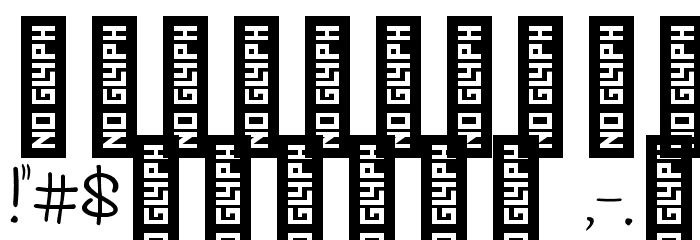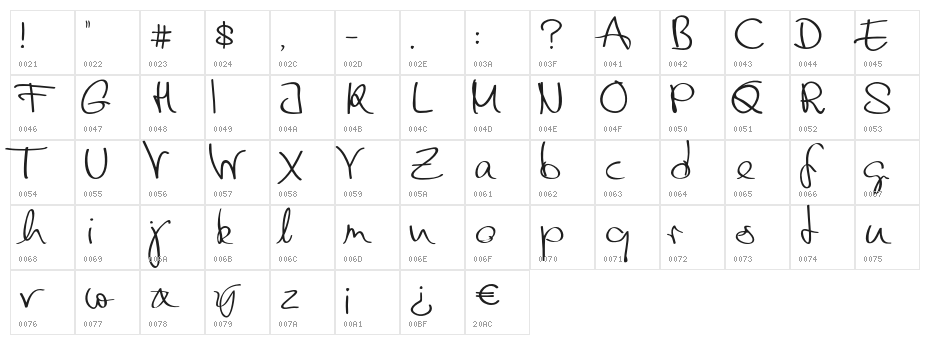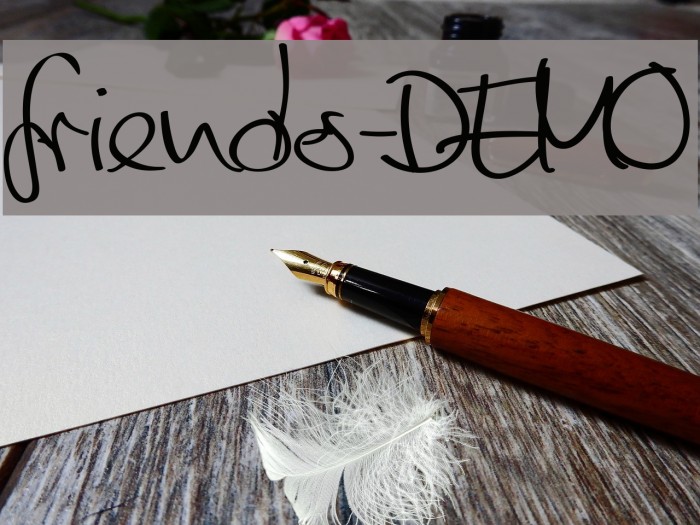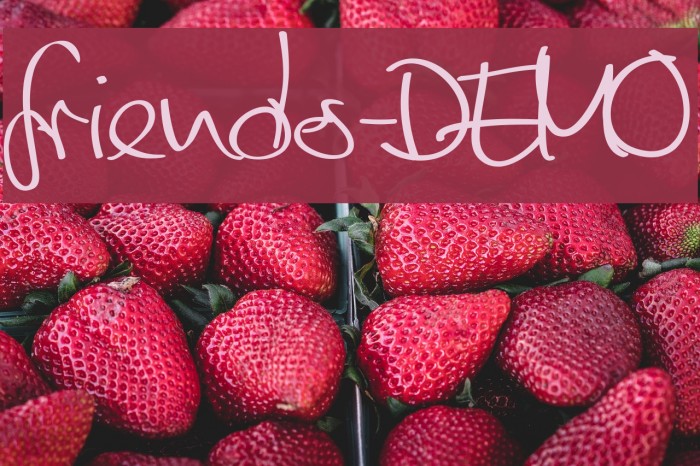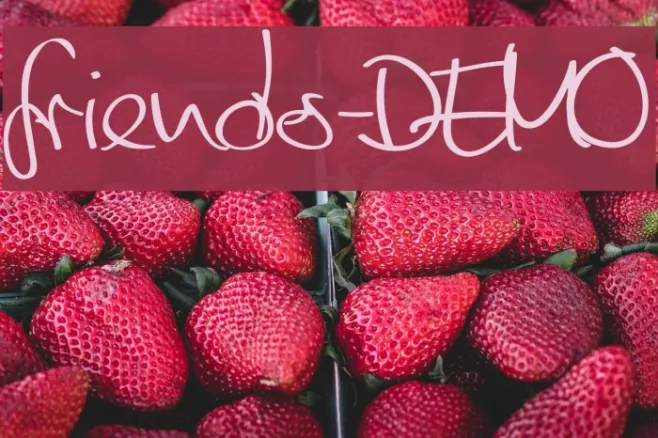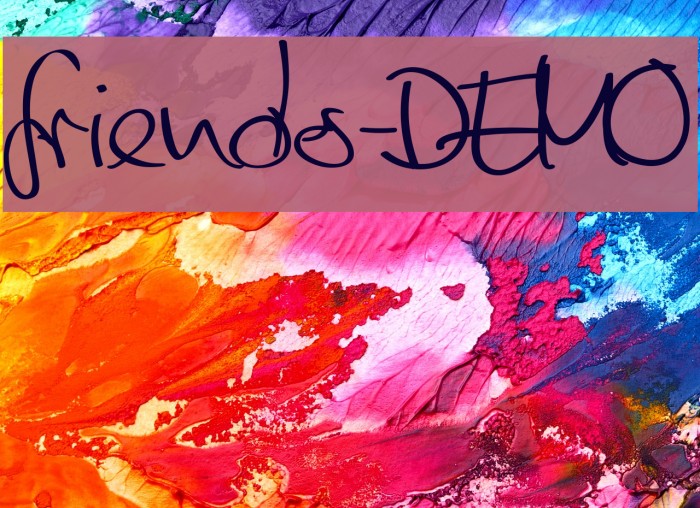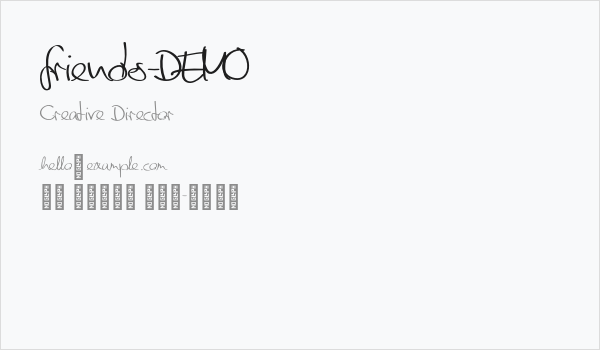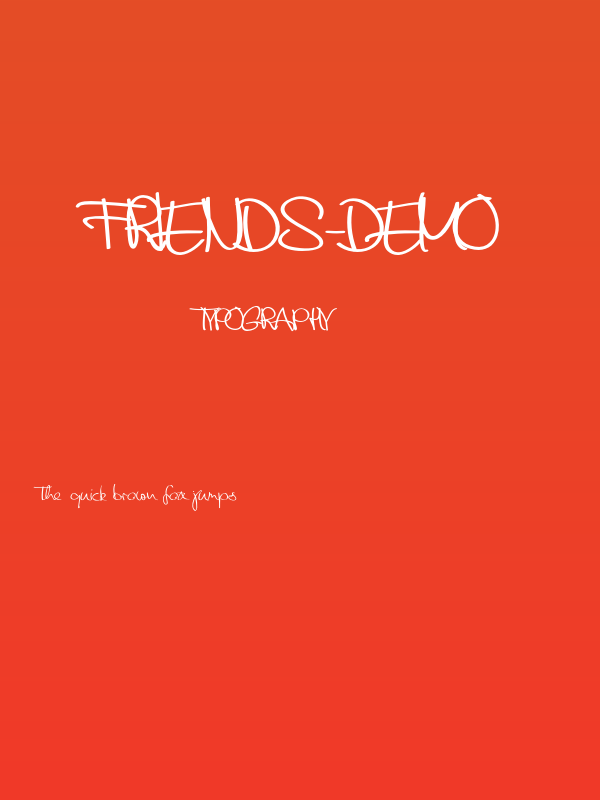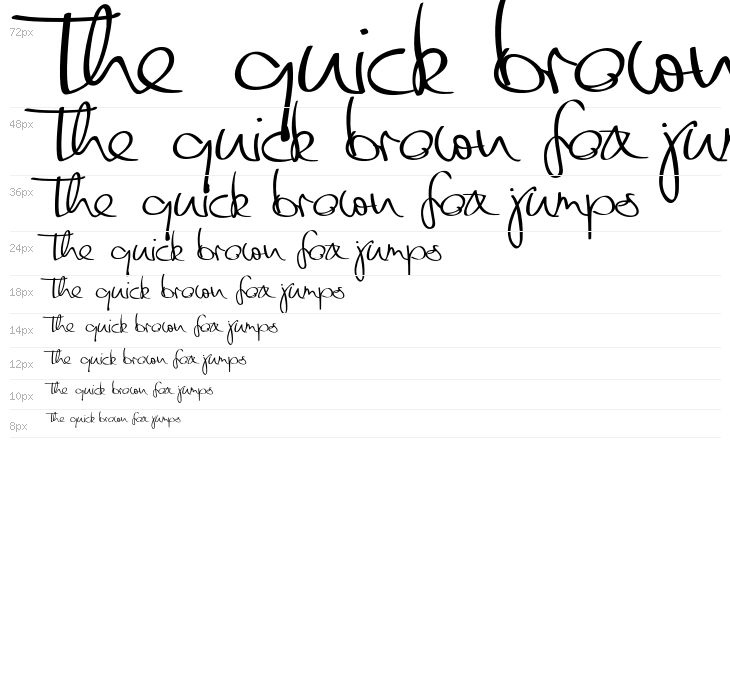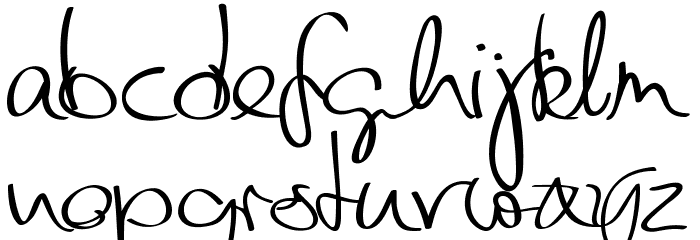
friends-DEMO Font
friends-DEMO Description
This font features a playful and casual handwritten style, characterized by its fluid and dynamic strokes. The uppercase letters are bold and slightly slanted, giving a sense of movement and energy. The lowercase letters maintain a consistent flow, with some letters extending below the baseline, adding to its informal charm. The font's overall appearance is lively and expressive, making it suitable for projects that require a personal touch. The spacing between characters is relatively tight, enhancing its cohesive look.
| Proposed Projects | Ideal for greeting cards, invitations, personal branding, and creative projects that require a friendly and approachable feel. |